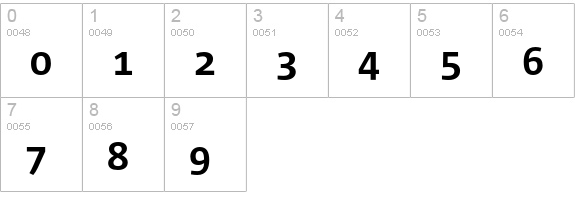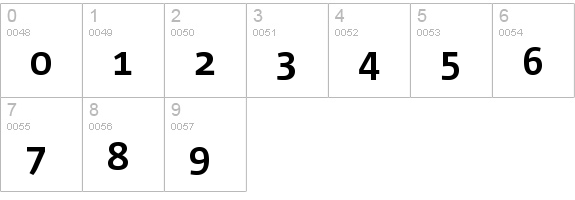
Corpid Bold is a strong, high-contrast variant in the Corpid typeface family \xE2\x80\x94 well suited to headlines, attention-grabbing titles, and strong calls-to-action.
Corpid Bold font is a modern and sleek typeface that exudes confidence and sophistication. With its clean lines and robust letterforms, Corpid Bold is perfect for conveying a sense of strength and professionalism in any design project. Its bold weight makes a strong statement while remaining easily readable across various mediums. The best part? Corpid Bold font is available for free download at FontsMarket.com, making it accessible to all designers and creatives looking to elevate their work with a touch of bold elegance. Whether you're working on branding materials, editorial designs, or digital assets, Corpid Bold is sure to make a lasting impression. Download this versatile font today and enhance your projects with its timeless appeal.